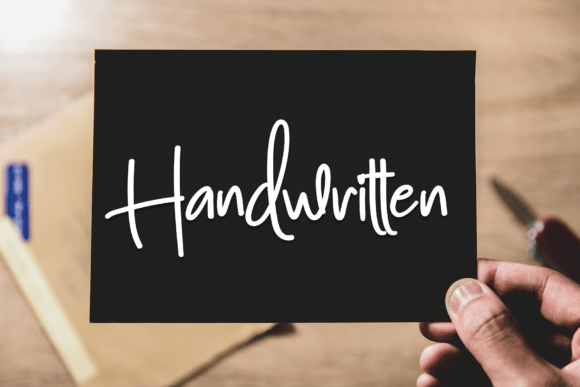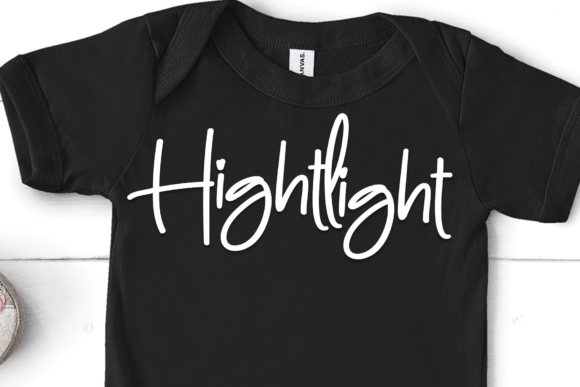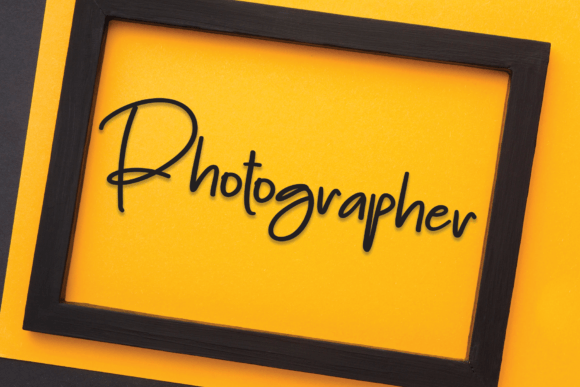
About Daily Font
“Daily’s” latest style letters offer a versatile and expressive handwritten font that is well-suited for a wide range of design applications. Whether you’re creating wall displays, wedding invitations, social media post logos, advertisements, product packaging, product designs, labels, photography watermarks, invitations, stationery, or any project that calls for a handwritten touch, “Daily’s” has you covered.
The appeal of “Daily’s” lies in its ability to convey a sense of authenticity and creativity. Each character is thoughtfully designed to exude a handwritten and dynamic vibe, making it an ideal choice for projects where you want to create a visually engaging and expressive impression. This font allows you to add a touch of individuality and flair to your content.
For branding, product designs, promotional materials, and various design applications, “Daily’s” provides the creative freedom to make your projects stand out. Its handwritten style can enhance the visual appeal of your designs and effectively communicate your message to your audience.
In summary, “Daily’s” latest style letters are a valuable font choice that brings authenticity and creativity to your projects. Its handwritten and expressive script style makes it suitable for a variety of applications, and its ability to convey individuality and dynamism sets it apart. With “Daily’s” in your font collection, your design projects will exude a sense of creativity and authenticity that leaves a lasting impression.